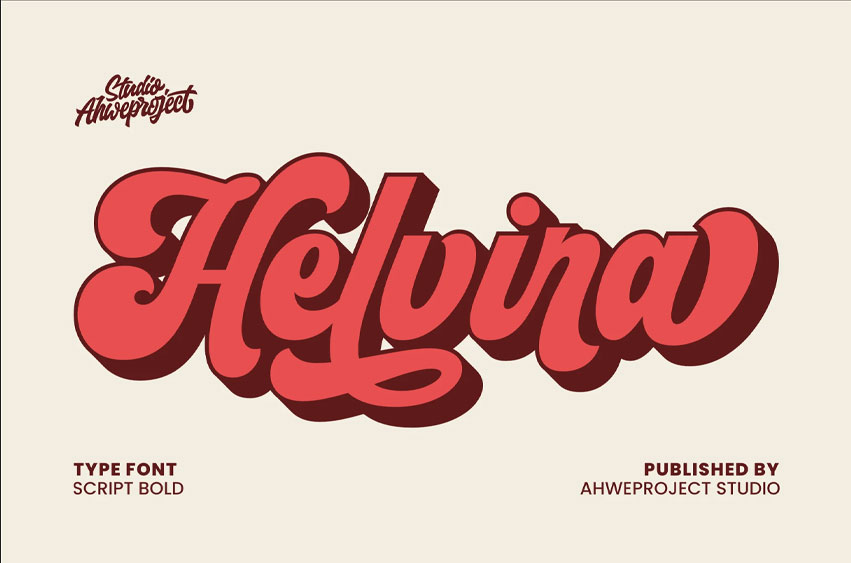
Helvira Font is a bold script font full of charm, confidence, and retro spirit. Its thick strokes, flowing curves, and lively energy make it the perfect choice for eye-catching designs that demand attention.
From branding and logos to posters, packaging, merchandise, and social media graphics – Helvira brings a fun, nostalgic feel with a modern twist. The smooth connections and dynamic shapes give your text a handmade, personal touch while remaining bold and professional.